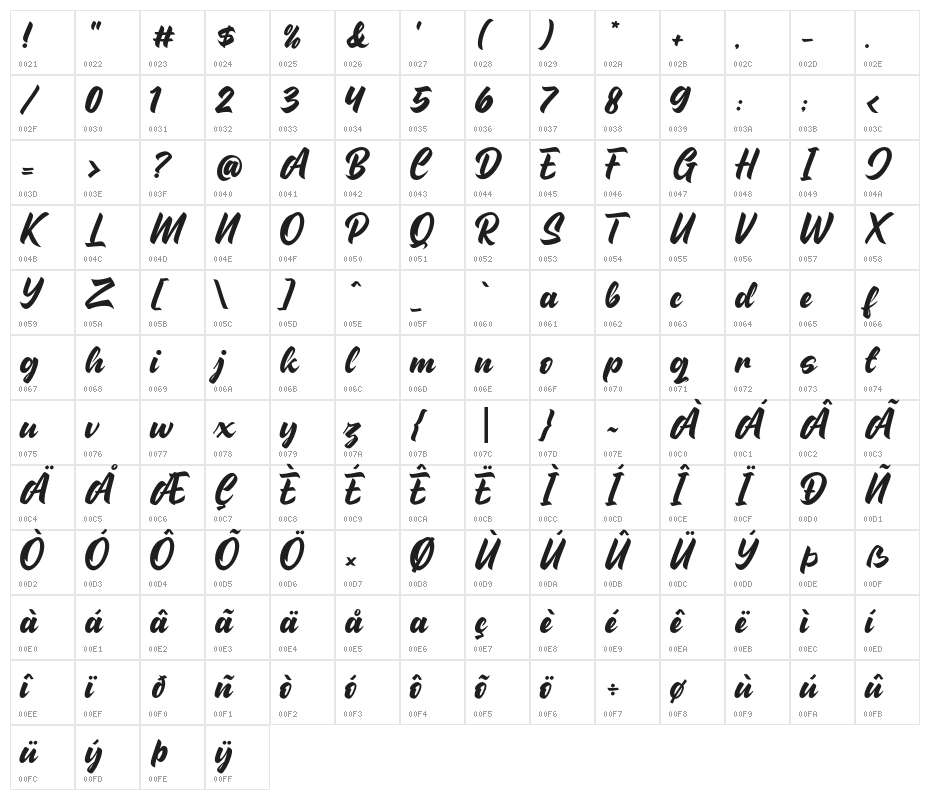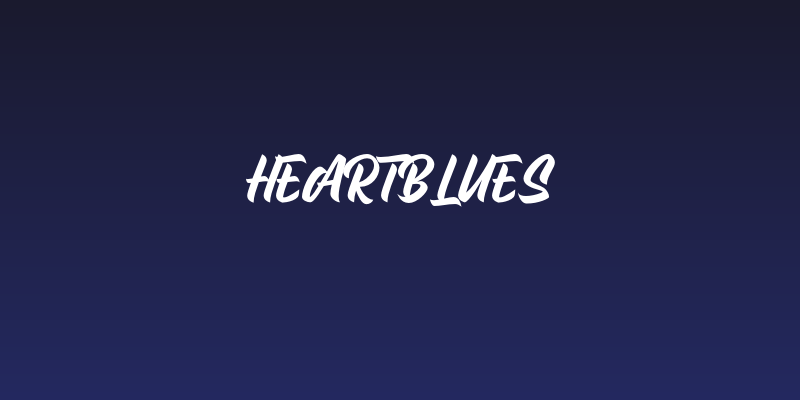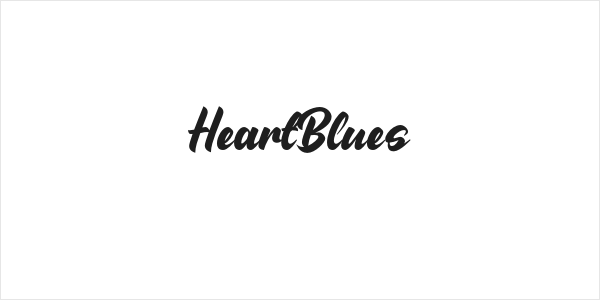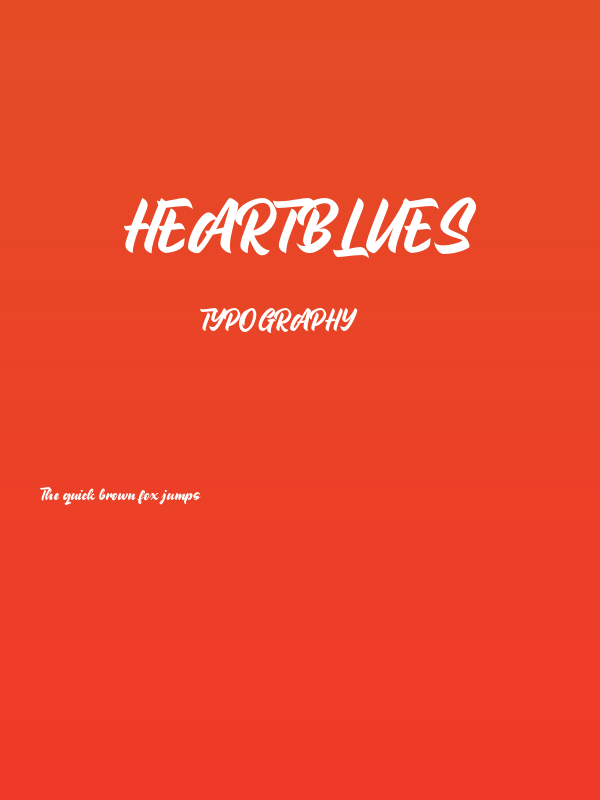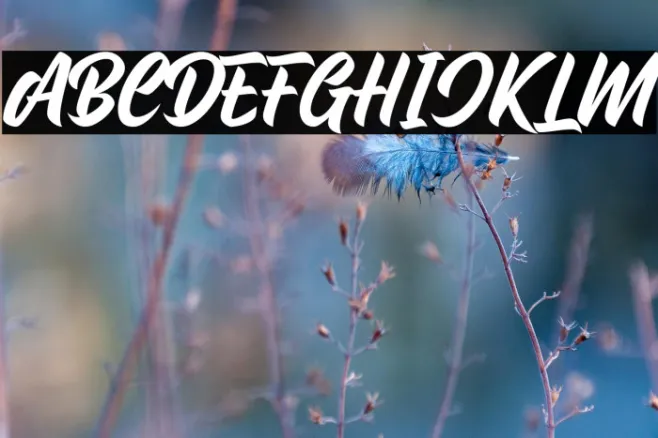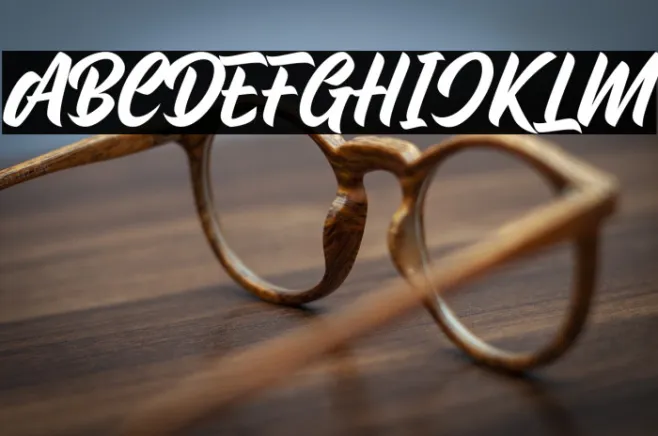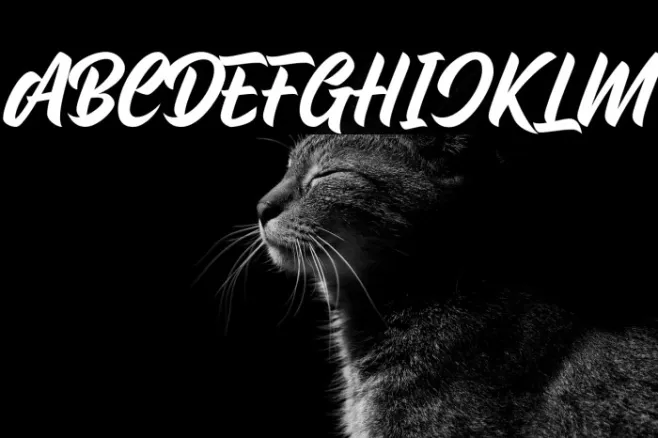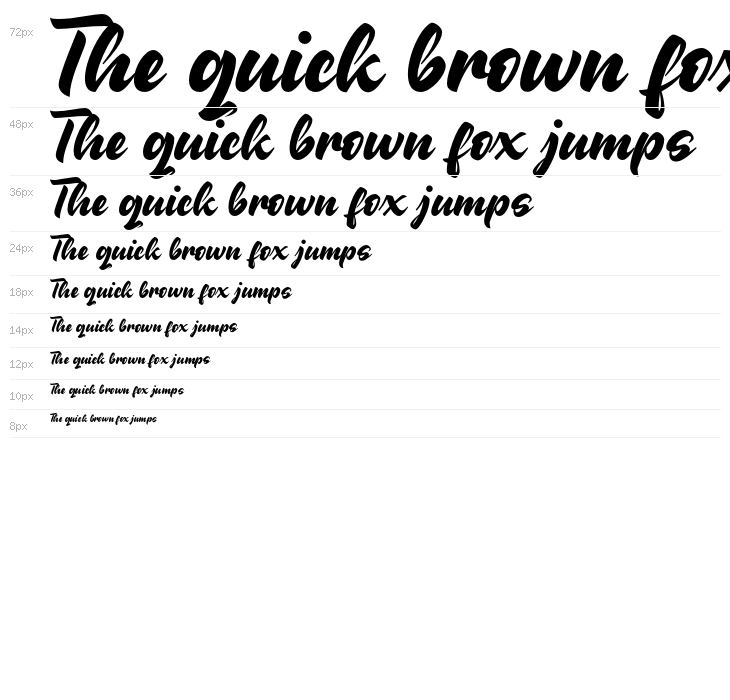
HeartBlues Font
HeartBlues Description
This font features a bold and expressive script style, characterized by its fluid and dynamic strokes. The letters are connected in a cursive manner, giving it a handwritten appearance. The uppercase letters are particularly striking, with sweeping curves and dramatic flourishes that add a sense of movement and elegance. The lowercase letters maintain the same fluidity, ensuring consistency throughout the text. The numerals are bold and easily readable, while the special characters complement the overall style with their own unique flair. This font exudes a sense of creativity and artistic expression, making it suitable for projects that require a personal touch.